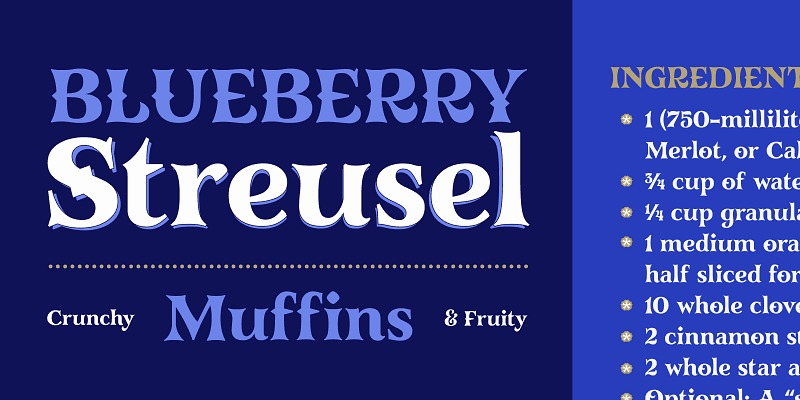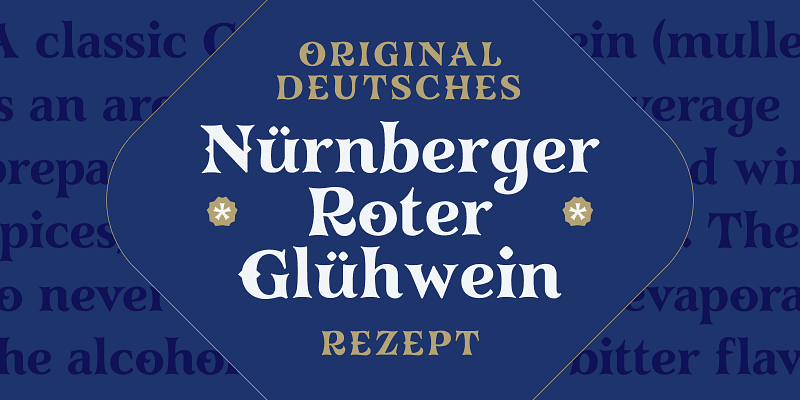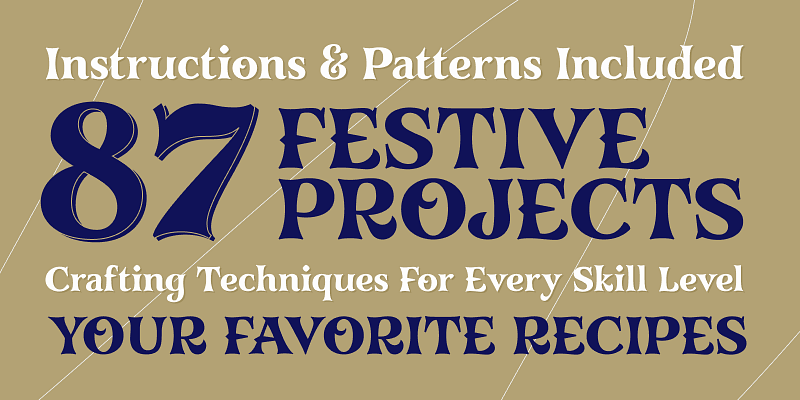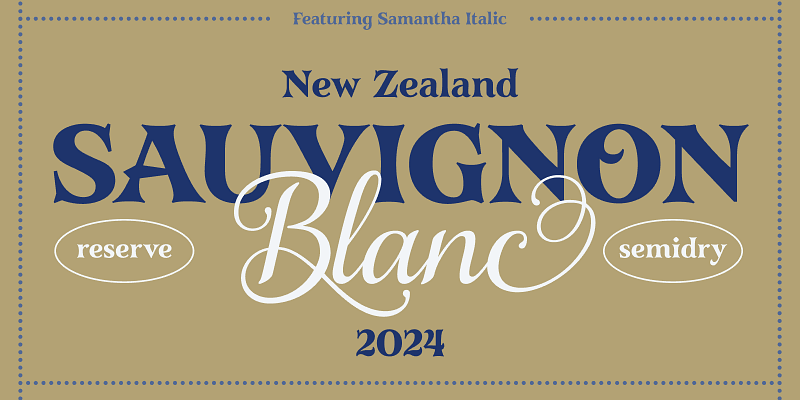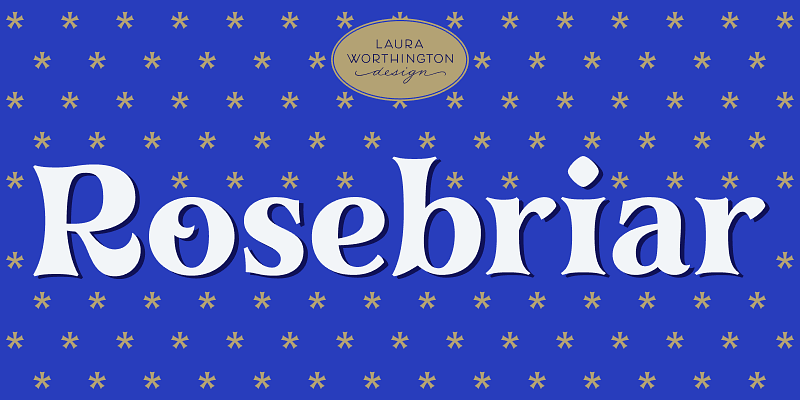
Rosebriar is a decorative display typeface with clear personality—ornamental, slightly nostalgic, and full of character without locking you into a single look. Its roman structure carries gothic ornamental details selectively: wedge cross strokes, splayed terminals, and diamond-shaped tittles give it a crafted, foliate quality that can read as medieval, storybook, or simply something distinct. Designed primarily for large titles and headlines, it carries enough flexibility for subheads, callouts, and short passages, bringing personality to the page while staying practical.